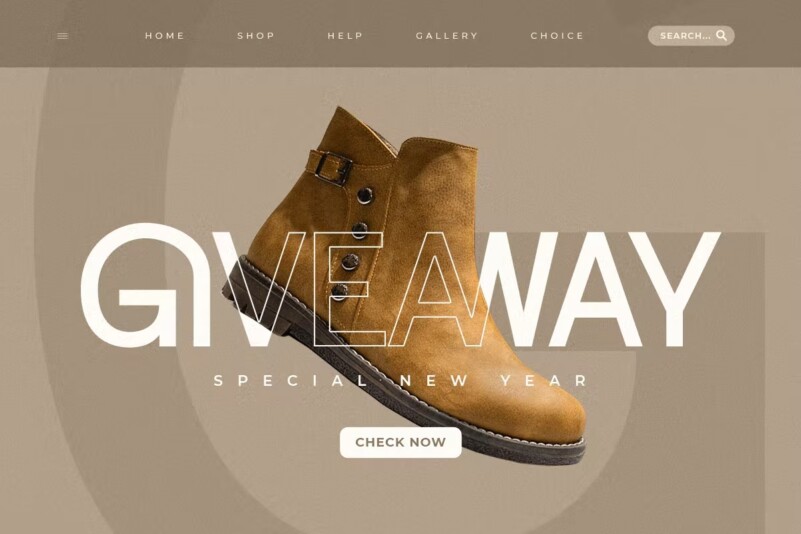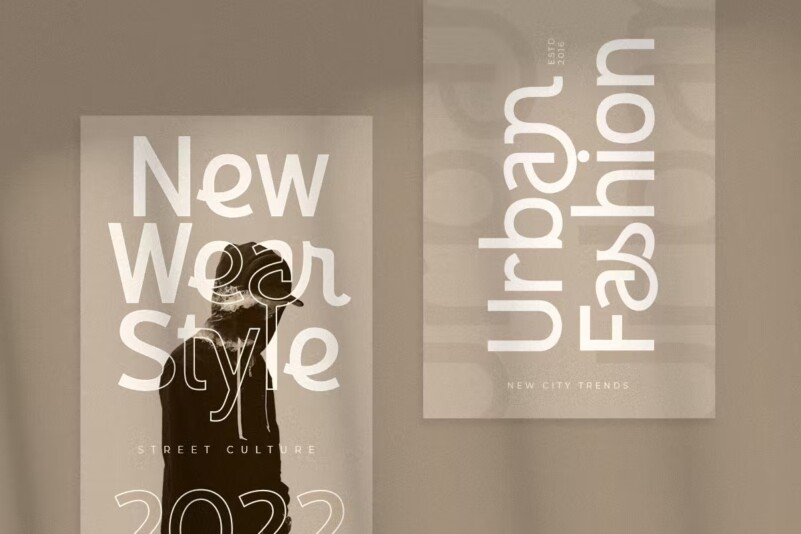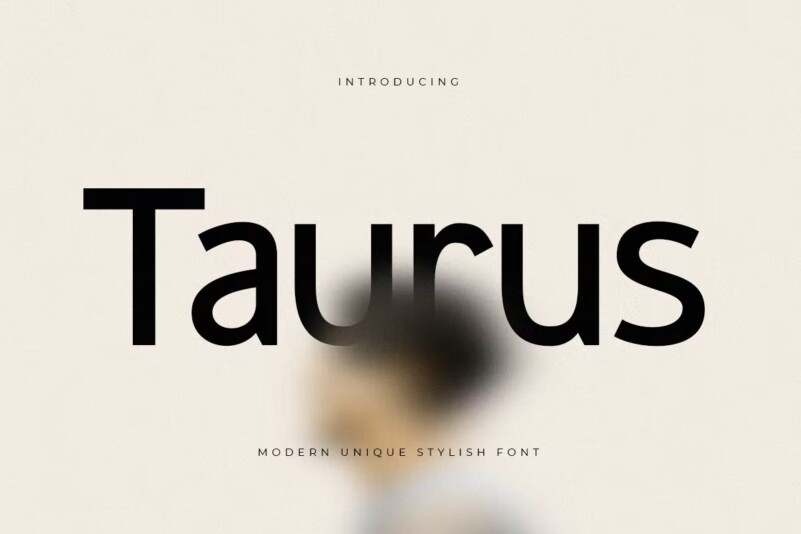
Taurus – modern unique stylish font
A sans serif we’ve created especially for unique branding needs, with additional uniquely shaped ligatures, will be ready to add value to your brand. It’s so nice to work with a designer or product owner who needs solutions to make their design more unique and modern. And especially for this font, we have prepared all character ligatures to help you create unlimited variations for your creative needs.